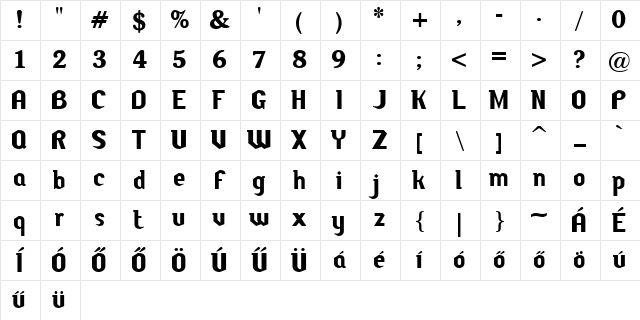
Butch Regular
Design Context for Butch
Butch is a composed and adaptable typeface that performs quietly and consistently across a wide range of design contexts.